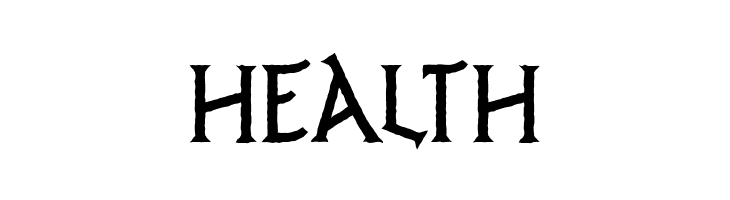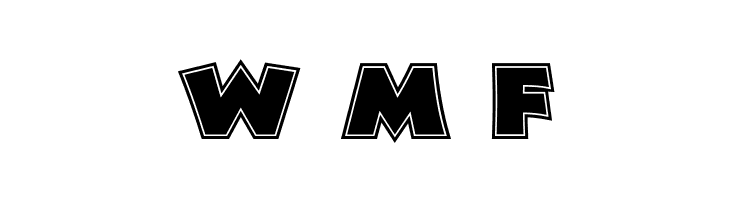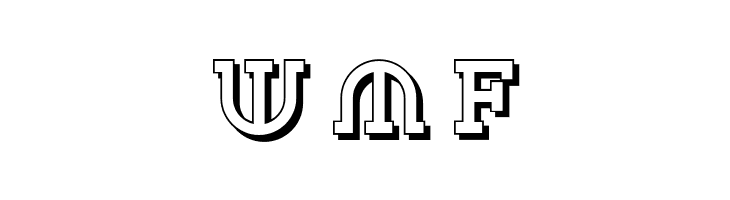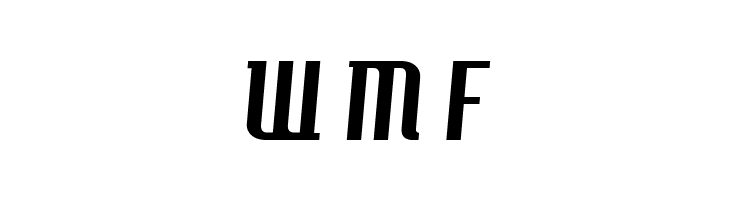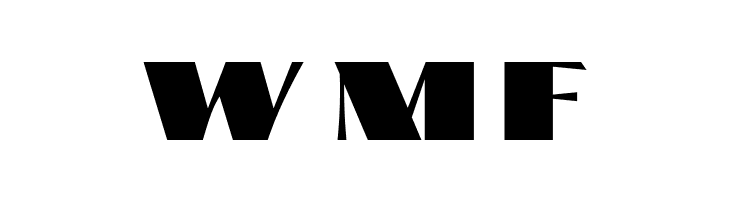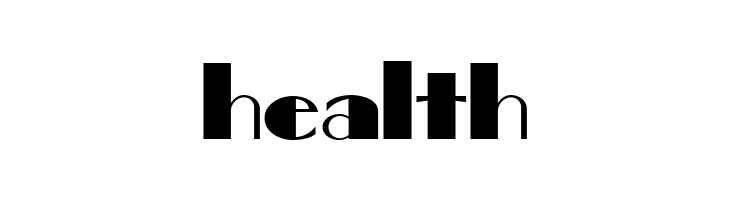
A playful, dynamic font with geometric and organic shapes.
A bold, vintage-inspired font with high contrast and geometric shapes.
A bold, dynamic script font with slanted, italicized characters and strong visual impact.
A bold, decorative font with a unique inline design, perfect for impactful headlines.
A bold, decorative font with a three-dimensional shadow effect.
A bold, geometric font with a modern and dynamic style.
A decorative inline font with a modern and elegant style.
A bold, slanted font with a dynamic and energetic style.
A bold, geometric font with high contrast and striking visual impact.